Psychedelic Fonts: 10 Best Psychedelic Fonts for Trippy and Groovy Design
Psychedelic design is back with a colorful bang—and nothing sets the tone better than the right psychedelic fonts. Whether you’re designing for music posters, festival merch, vintage branding, or creative social content, these mind-bending typefaces bring a nostalgic yet modern edge to your visual storytelling. Drawing inspiration from the vibrant ’60s and ’70s counterculture movement, psychedelic fonts evoke freedom, rebellion, and artistic energy.
In this article, we’re diving into the 10 best psychedelic fonts from Putracetol Studio that channel everything from groovy swirls to retro abstraction. These fonts are perfect for creators, designers, and brands who want to make a bold, colorful statement.
🎨 What Are Psychedelic Fonts?
Psychedelic fonts are typefaces designed with curvy, abstract, and often distorted elements inspired by the art and culture of the psychedelic era. They’re heavily influenced by music posters of the 1960s, mind-expanding visual effects, and the fluidity of hallucination-inspired patterns. They prioritize creativity over clarity, making them perfect for headlines and display use.
🌀 10 Best Psychedelic Fonts for Your Next Groovy Project
1. Funky Sign – Groovy Hipster Font
With bubbly curves and hippie vibes, Funky Sign is your go-to for retro posters and party graphics. It’s playful, bold, and bursting with fun.
2. Funky Velvet – Psychedelic Font
This font screams “flower power” with its thick, wavy strokes and warped symmetry. Great for logos, album covers, and experimental packaging.
3. Euphoria Party
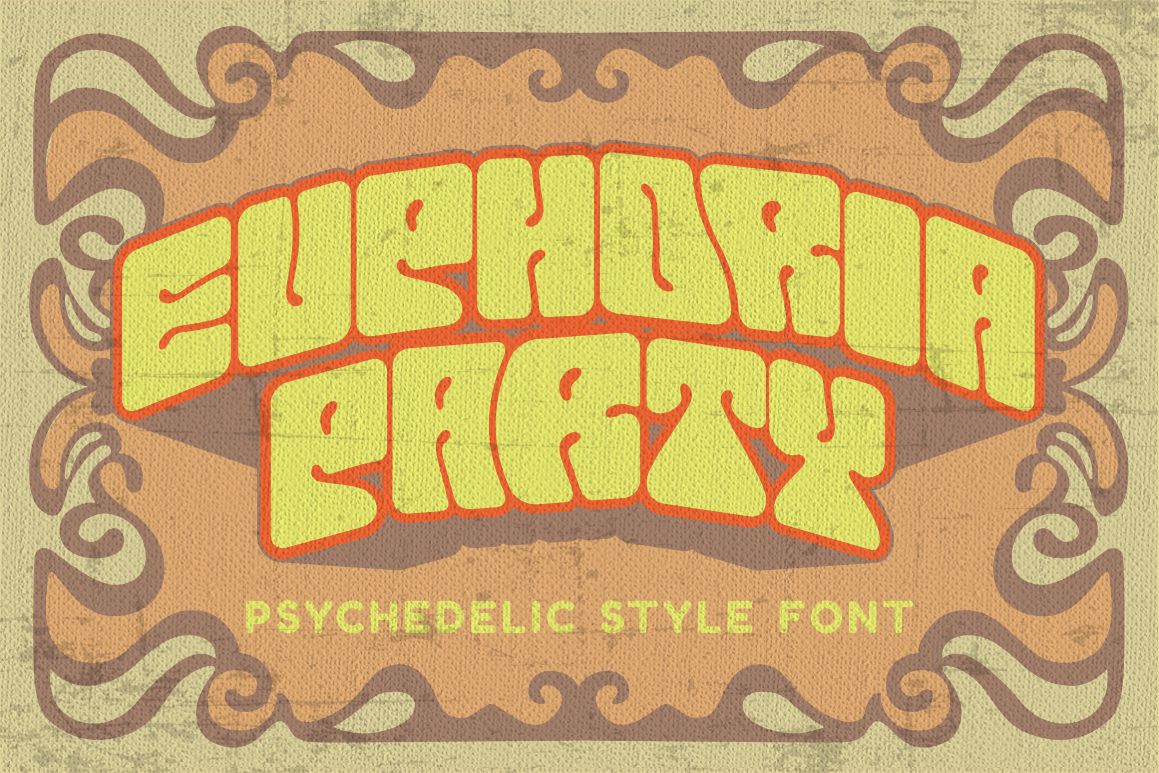
A vibrant font that feels like a rave under neon lights. Euphoria Party mixes script style with dreamy curves—ideal for modern psychedelic branding.
4. Golden Boogie – Retro Display Font
Imagine Studio 54 meets Woodstock. Golden Boogie is full of disco drama and ‘70s flair, making it the perfect font for glamorous, vintage-inspired visuals.
5. Groovy Bubble – Bold Psychedelic Display Font
Bouncy and oversized, Groovy Bubble brings a cartoonish charm. It’s a favorite for fun children’s packaging, funky apparel, and DIY printables.
6. Mind Meld – Psychedelic Display Font
Mind Meld warps space and perception with its twisted lines and unusual geometry. Use it for album art, experimental zines, and edgy fashion branding.
7. Mind Explorer
This futuristic psychedelic font fuses retro-futurism with abstract structure. Perfect for sci-fi themes and dreamy visual explorations.
8. Retrovia Memories – Abstract Psychedelic Font
This abstract font balances elegance with creative irregularity. Its thin lines and surreal shapes make it great for artistic posters and editorial headlines.
9. Neon Daze – Psychedelic Font
Neon Daze brings glowing contrast and an electric aesthetic. Its trippy lines mimic neon tubes—ideal for nightlife branding and festival promo.
10. Particela – Display Font
Stylized, unique, and experimental, Particela is bold enough for tech-art themes but still soft enough for groovy album titles.
✨ Why Use Psychedelic Fonts?
- Create Visual Impact – These fonts are designed to stand out, capturing attention instantly.
- Convey Mood and Era – Psychedelic fonts bring a sense of nostalgia while still feeling fresh and innovative.
- Express Creativity – Perfect for music, fashion, and art-related projects that lean into personality and imagination.
🧠 How to Use Psychedelic Fonts Effectively
- Limit to Headlines – Due to their ornate nature, these fonts work best for titles, not body text.
- Pair with Simple Fonts – Combine with minimalist sans-serifs for balance and clarity.
- Play with Color – Psychedelic fonts shine with vibrant color palettes and gradient overlays.
🎯 Final Thoughts
Psychedelic fonts offer an exciting way to amplify your brand’s personality, especially if your work leans into retro, creative, or artistic directions. The 10 fonts featured above are all crafted by Putracetol Studio, each one bringing its own visual twist to the psychedelic theme. Whether you’re designing for a groovy party flyer, a funky music album, or bold apparel branding, these fonts will help you speak in colors and curves.